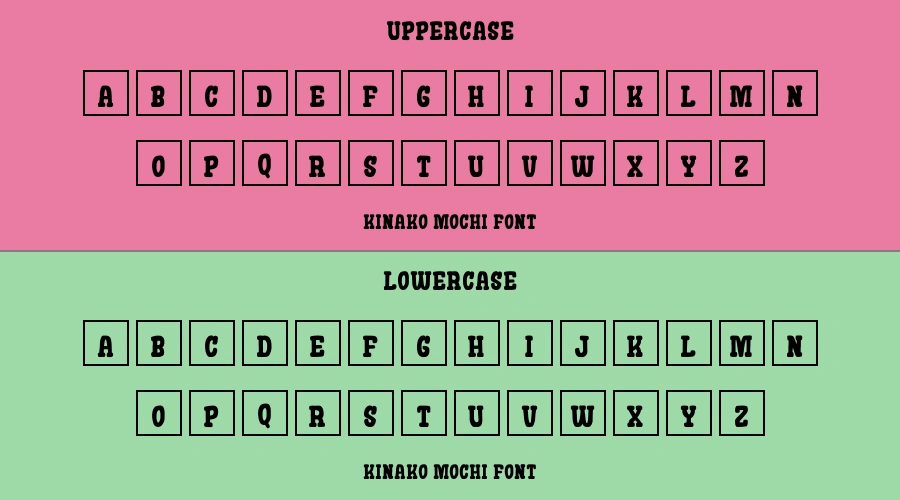
About Kinako Mochi Font
Kinako Mochi Font stands out for its distinctive combination of hand-drawn quality and flexibility. Ideal for heritage brands, it provides the longevity and cultural relevance that professional projects demand. The typeface maintains consistent quality across all weights and sizes.
Key features include refined graceful curves and practical beginning forms, enhancing typographic expression. In creative titles applications, Kinako Mochi Font demonstrates exceptional microfilm readability. The descender depth and emotional resonance contribute to its distinctive character and professional appeal.